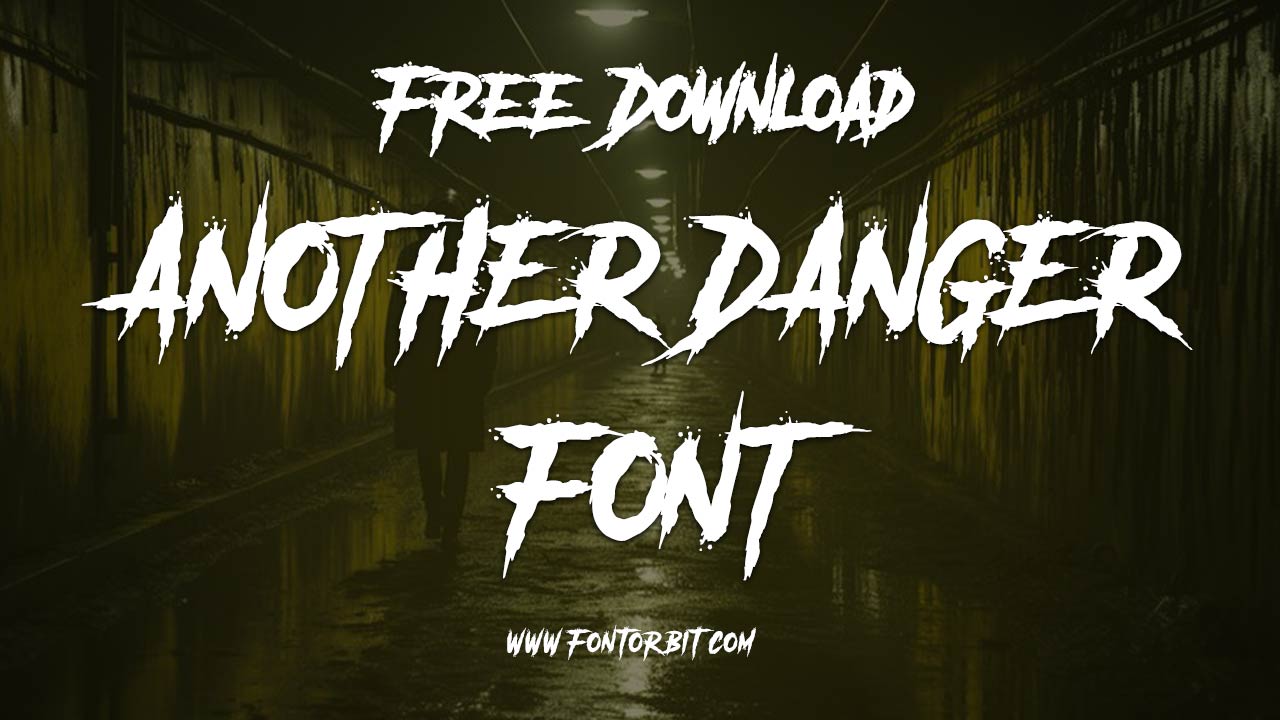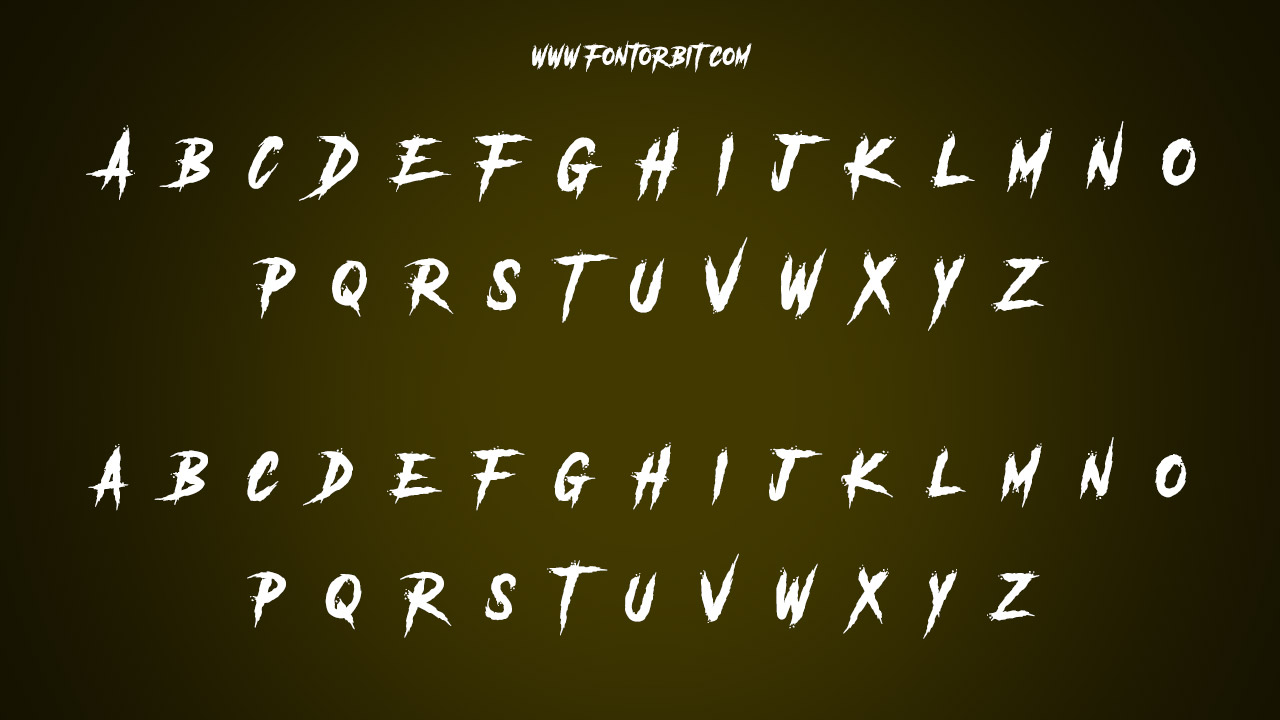
Another Danger Font, crafted by Branded Quotes, is a strikingly eerie typeface designed to infuse your projects with suspense and mystery.
This font’s unique, ominous appearance makes it ideal for horror-themed designs, adding a chilling yet captivating element to your visuals. With its spooky charm, Another Danger Font is perfect for various creative and promotional uses.
Another Danger Font offers a variety of styles that make it suitable for different design needs. With a comprehensive set of 268 glyphs, it features uppercase and lowercase letters, punctuation marks, and a selection of symbols.
This font provides stylistic alternates, ligatures, and multi-language support, ensuring its versatility across diverse projects. The Another Danger Font family includes:
Another Danger Font is a versatile choice for any project that aims to convey a sense of mystery or tension. Its design, with its dramatic flair, is inspired by horror aesthetics and is perfect for:
- Movie posters
- Game graphics
- Websites
- Graphic designs
- Banners
- Clothing brands
- T-shirt designs
- Print media
- Magazines
- Books
- Business cards
- Titles
- Event Invitations
- Themed decorations
The font’s association with horror and suspense makes it particularly suitable for projects that aim to engage and intrigue, whether for entertainment, marketing, or themed events.
Another Danger Font perfectly balances its spooky nature with readability, making it an excellent choice for various design projects.
Its association with horror themes gives it a distinctive edge, while its clear, impactful design ensures it captures attention effectively. Another Danger Font is a compelling choice to elevate your project with its unique, chilling appeal.
1.Is Another Danger Font Suitable For All Types Of Text?
Another Danger Font is best suited for display text, such as titles and headings. Its dramatic design is ideal for catching attention in short bursts of text but may not be the best choice for lengthy body text where readability is crucial.
2.What Distinguishes Another Danger Font From Other Horror-Themed Fonts?
Another Danger Font stands out due to its distinct, spooky design and ability to evoke suspense and drama. Its combination of stylistic alternates and clear legibility adds a unique character to your projects.
4.What Are The Benefits Of Using Another Danger Font In Web Design?
Using Another Danger Font in web design can add a dramatic and engaging element to your site. Its unique style can make your website stand out, especially for horror-themed or entertainment-focused sites.
5.What Should I Consider When Using Another Danger Font In Print Media?
For print media, ensure high contrast and appropriate sizing to maintain readability. Another Danger Font is excellent for eye-catching posters and themed materials but may require larger sizes for detailed print projects.